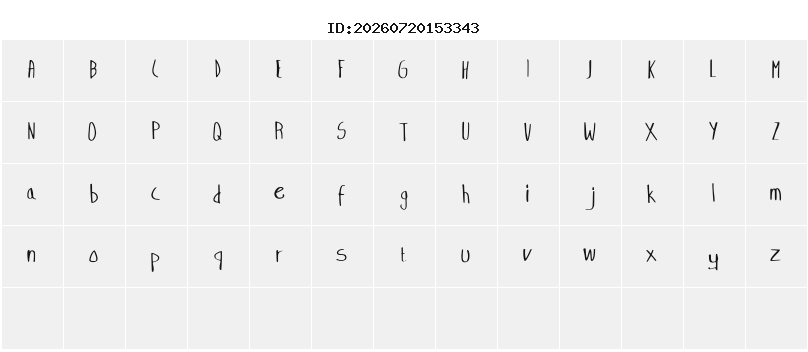
Freemind Preview
About Freemind.otf
Freemind.otf is a modern, elegant sans-serif font designed for ultimate readability and visual harmony. Perfect for branding, headlines, web design, and print materials.